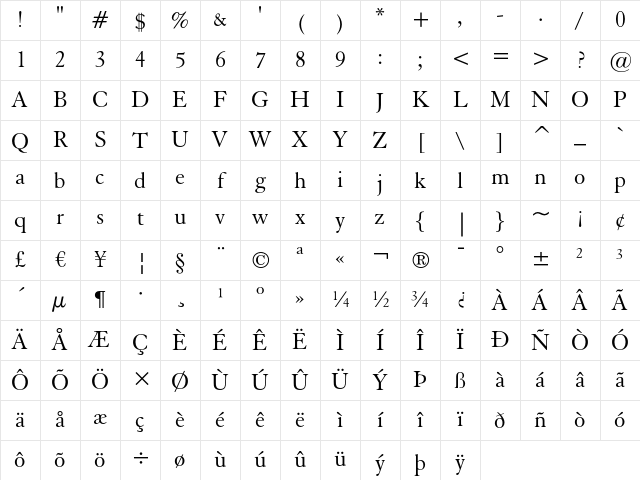
Elegant Garamond Regular Free Font
Design Context for Elegant Garamond
Elegant Garamond is a composed and adaptable typeface that performs quietly and consistently across a wide range of design contexts.